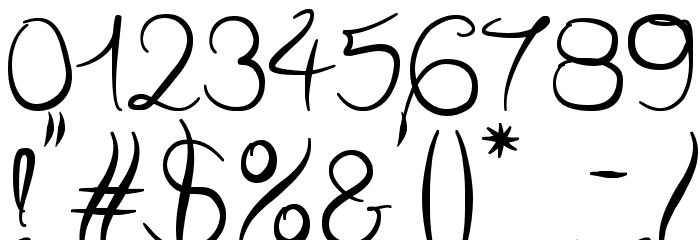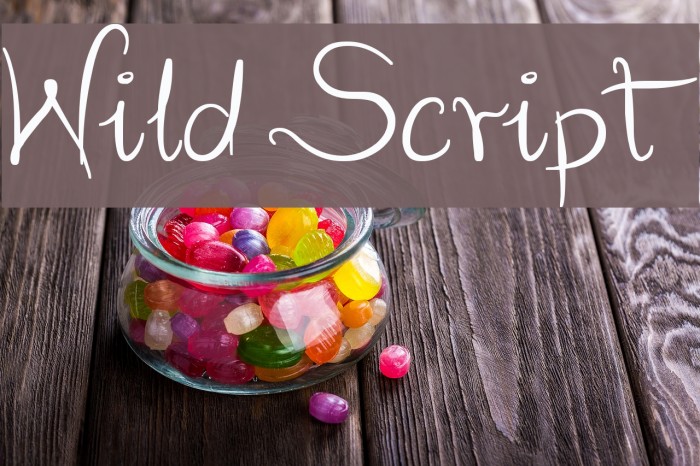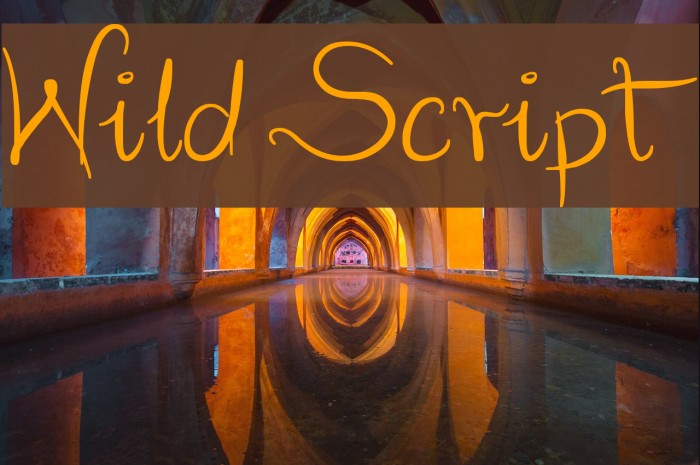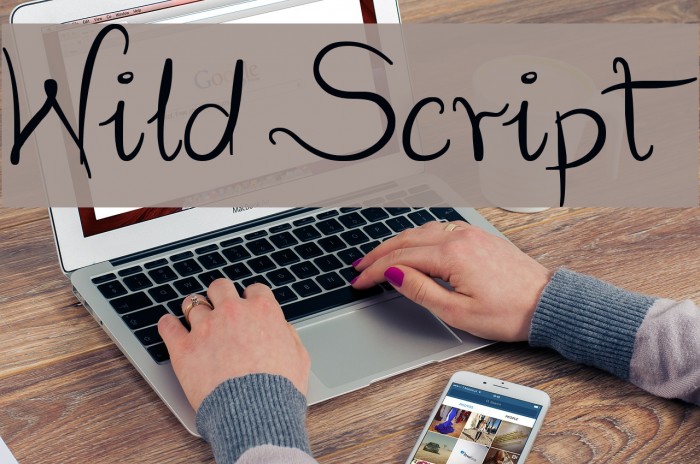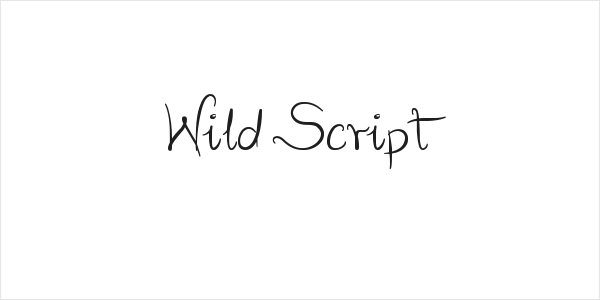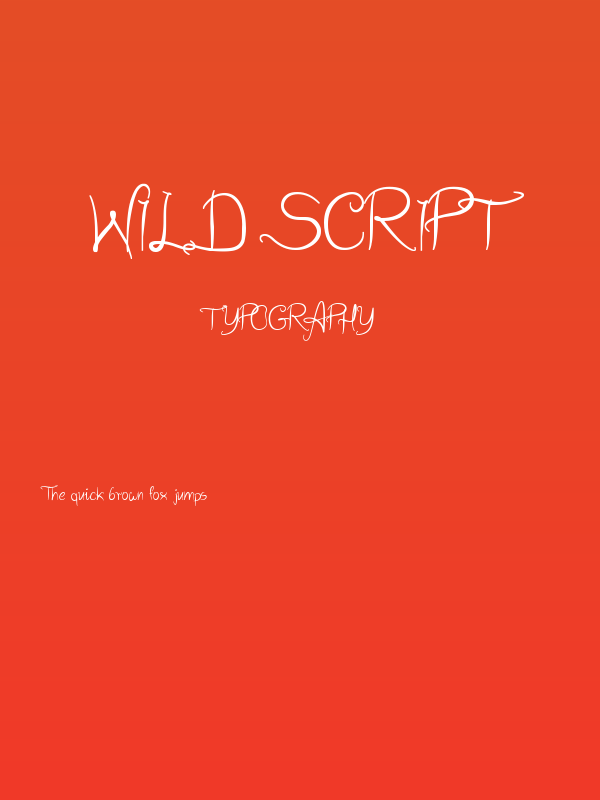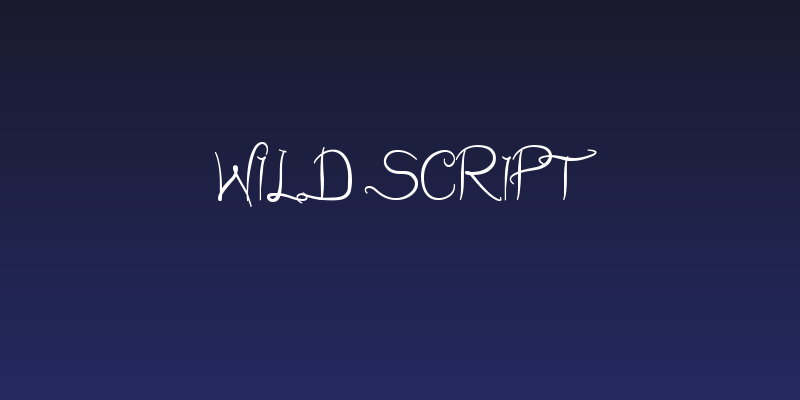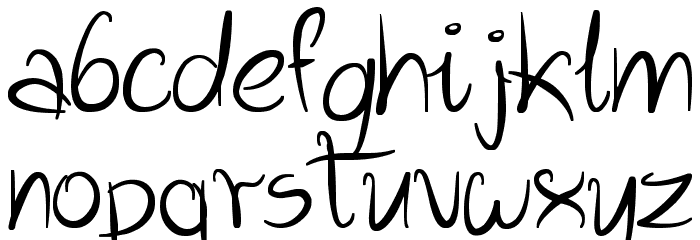
Wild Script Font
Wild Script Description
This font exudes a lively and dynamic energy, characterized by its fluid and expressive strokes. The letters are crafted with a whimsical flair, featuring a mix of thick and thin lines that create a sense of movement and spontaneity. The uppercase letters are bold and prominent, while the lowercase letters maintain a playful and informal style. The numerals and special characters are equally expressive, adding to the font's overall charm. This script style is reminiscent of handwritten calligraphy, making it perfect for projects that require a personal touch.
| Use Case | Logos, Invitations, Creative projects |
| Proposed Projects | Ideal for greeting cards, invitations, branding, and creative projects that require a personal and artistic touch. |